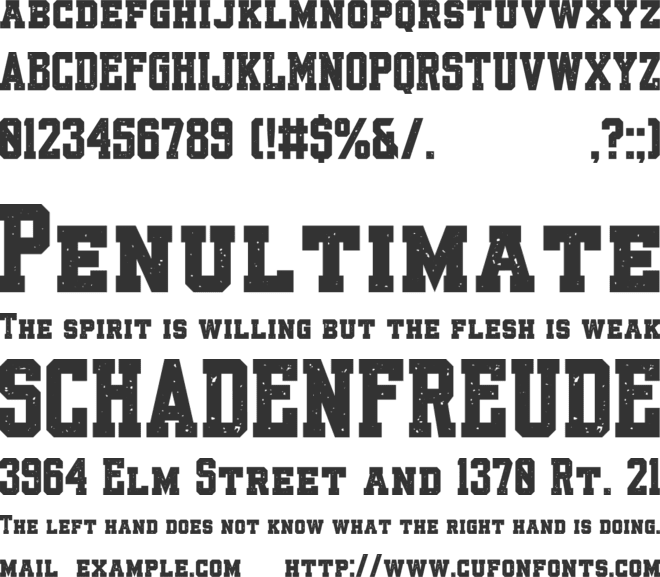
JERSEYCLUB GRUNGE Font
JERSEYCLUB is a new complete typeface family designed for sports usage. Created to catch up with the lack of Sporty fonts with multilingual support, special characters, numbers and symbols, JERSEYCLUB comes in Serif and Sans Serif editions. Each edition comes in 3 weights (light, regular & bold) to match most sport topics and usage. JERSEYCLUB typefaces contains 167 glyphs, and all of them includes caps and small caps.
JERSEYCLUB is designed by Royalclub.